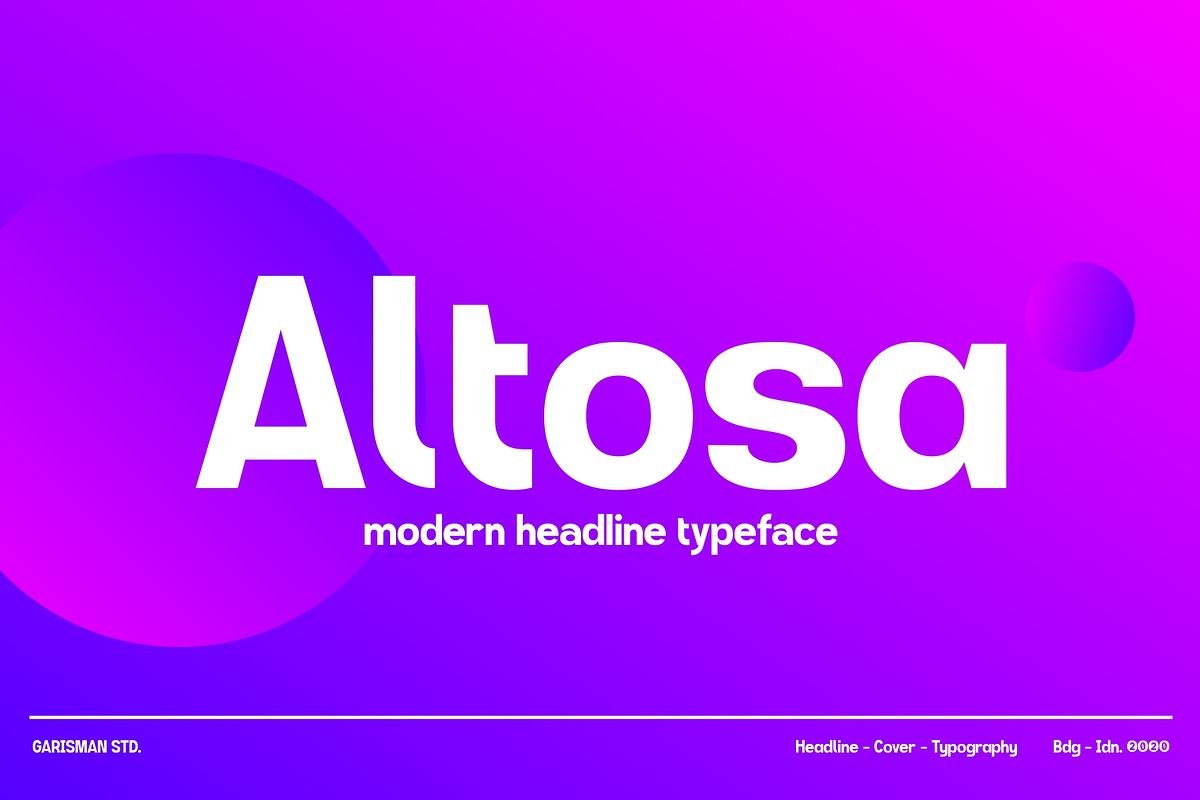
GR Altosa Typeface Free Download
Please note, to use this font for commercial purposes, you must purchase the full version. GR Altosa is a sleek and modern typeface that combines clean, geometric letterforms with a stylish, contemporary design. Perfect for logos, branding, websites, and editorial projects, this font brings a professional and polished touch to your work. Whether you're designing for a tech brand, a minimalist campaign, or a high-end project, GR Altosa adds clarity and sophistication to your designs. Test it out and enjoy free download access for personal use. Experience the modern elegance of GR Altosa Typeface Free Download before purchasing the commercial license. Add a refined, stylish touch to your designs with GR Altosa.